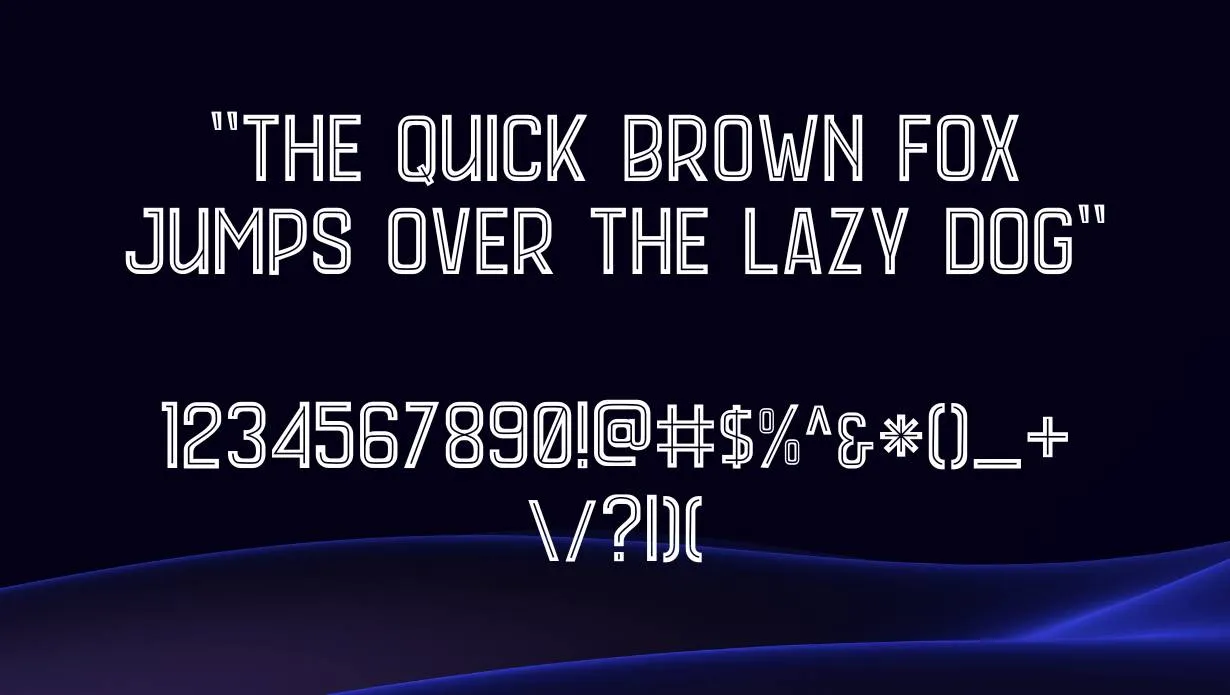
Cs Rocky Font offers a bold and adventurous design, often used in projects that aim to convey a sense of ruggedness and exploration.
The typeface family is highly versatile and accommodating for numerous foreign languages, making it an ideal choice when paired with decorative fonts like Source Serif Pro Font.
Cs Rocky Font Family
Its robust letterforms add an element of power and an outdoor feel to your designs.